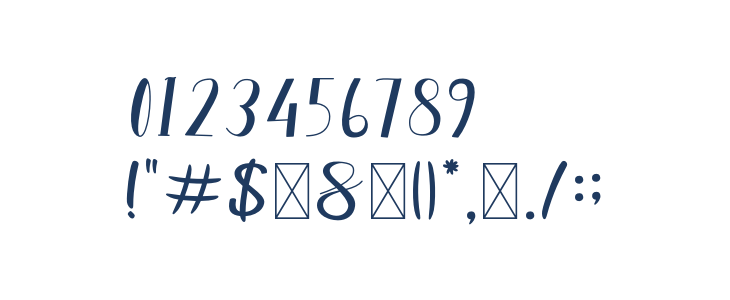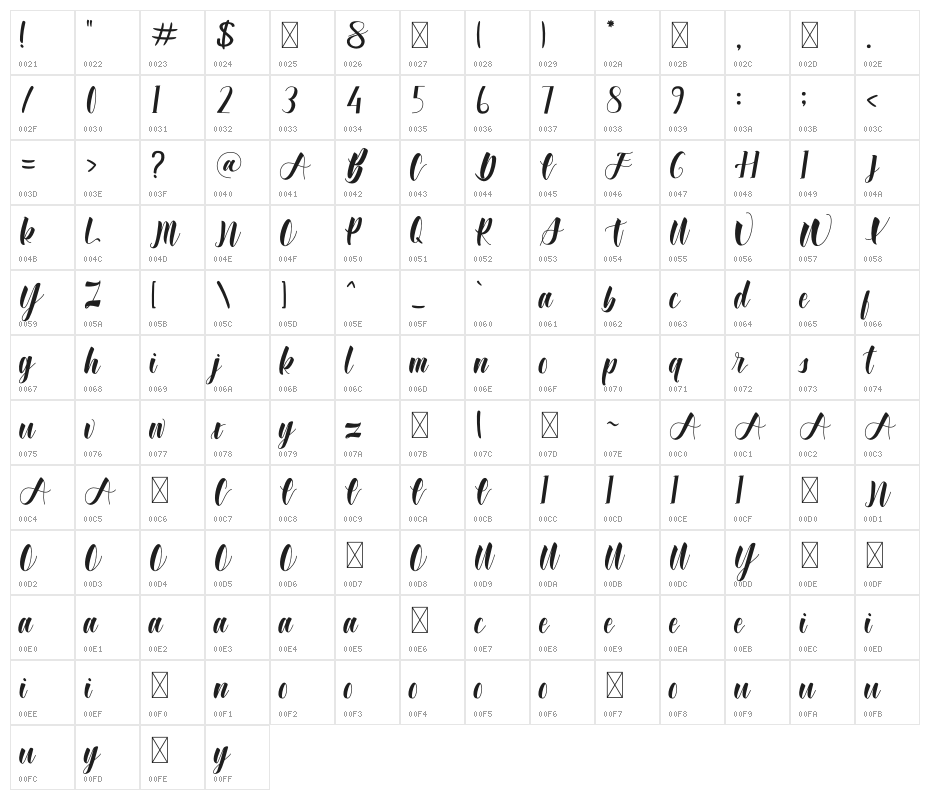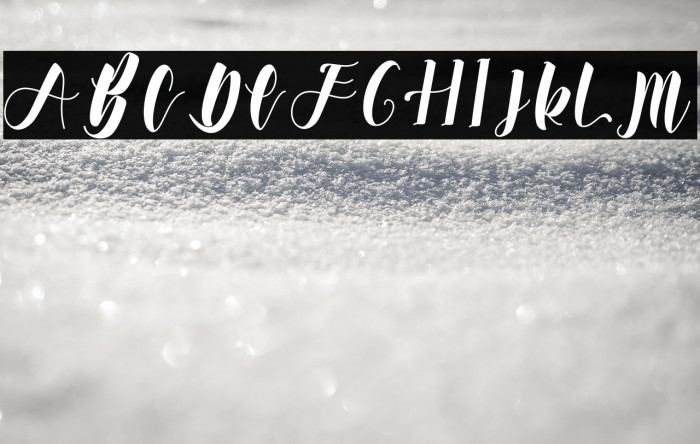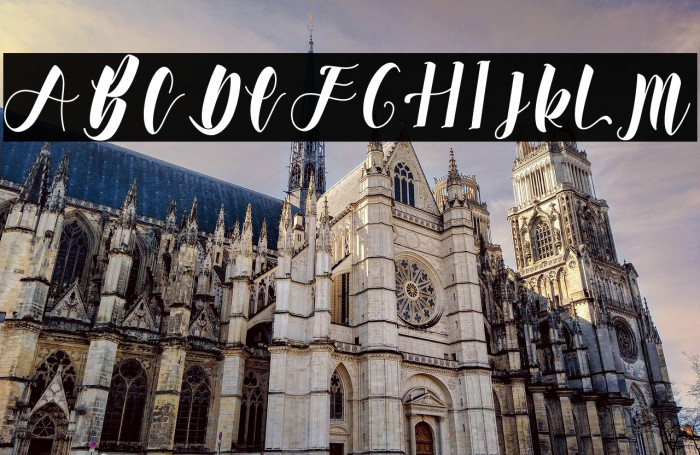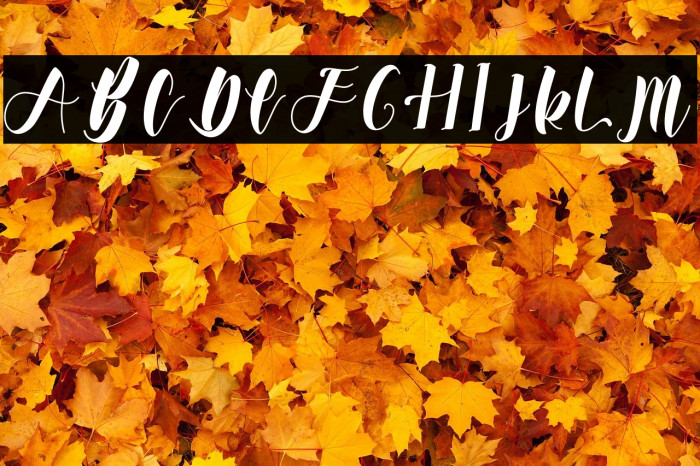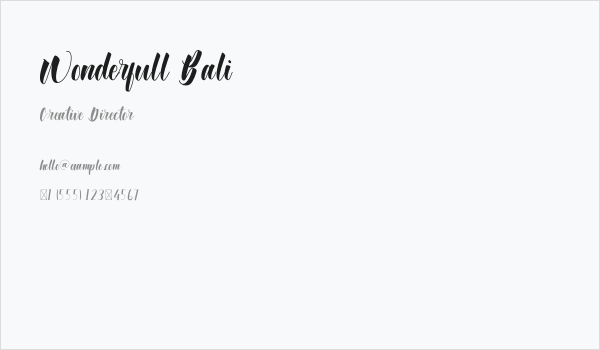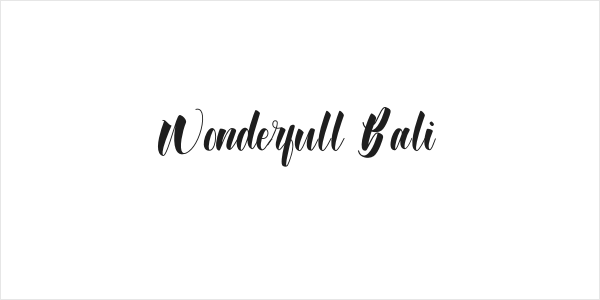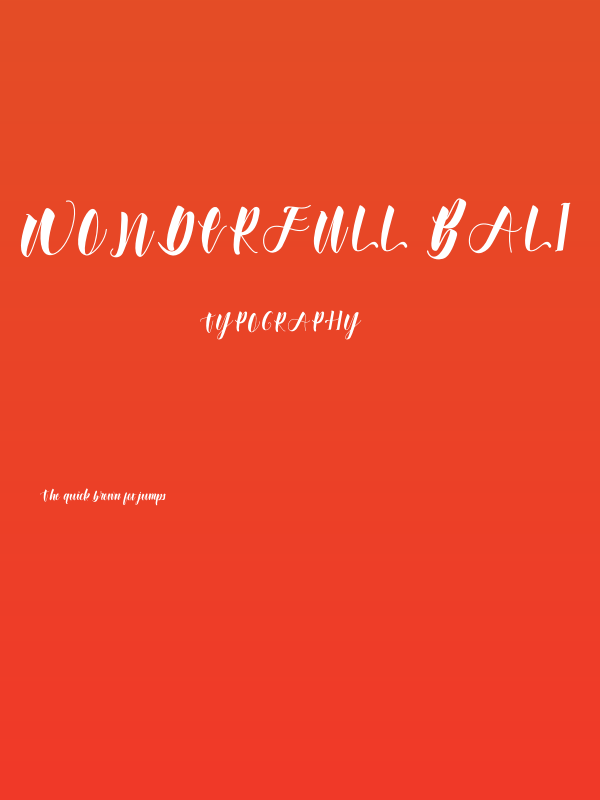
Wonderfull Bali Font
Wonderfull Bali Description
This font features an elegant and flowing script style, characterized by its smooth, cursive lines and artistic flair. The uppercase letters display a graceful, sweeping motion, while the lowercase letters maintain a consistent fluidity, enhancing the overall aesthetic. The numerals are distinct yet harmonize well with the alphabet, offering a cohesive look. Special characters are creatively integrated, adding to the font's versatility. This font exudes a sense of sophistication and creativity, making it suitable for a variety of design projects.
| Proposed Projects | Ideal for wedding invitations, branding, greeting cards, and elegant packaging designs. |